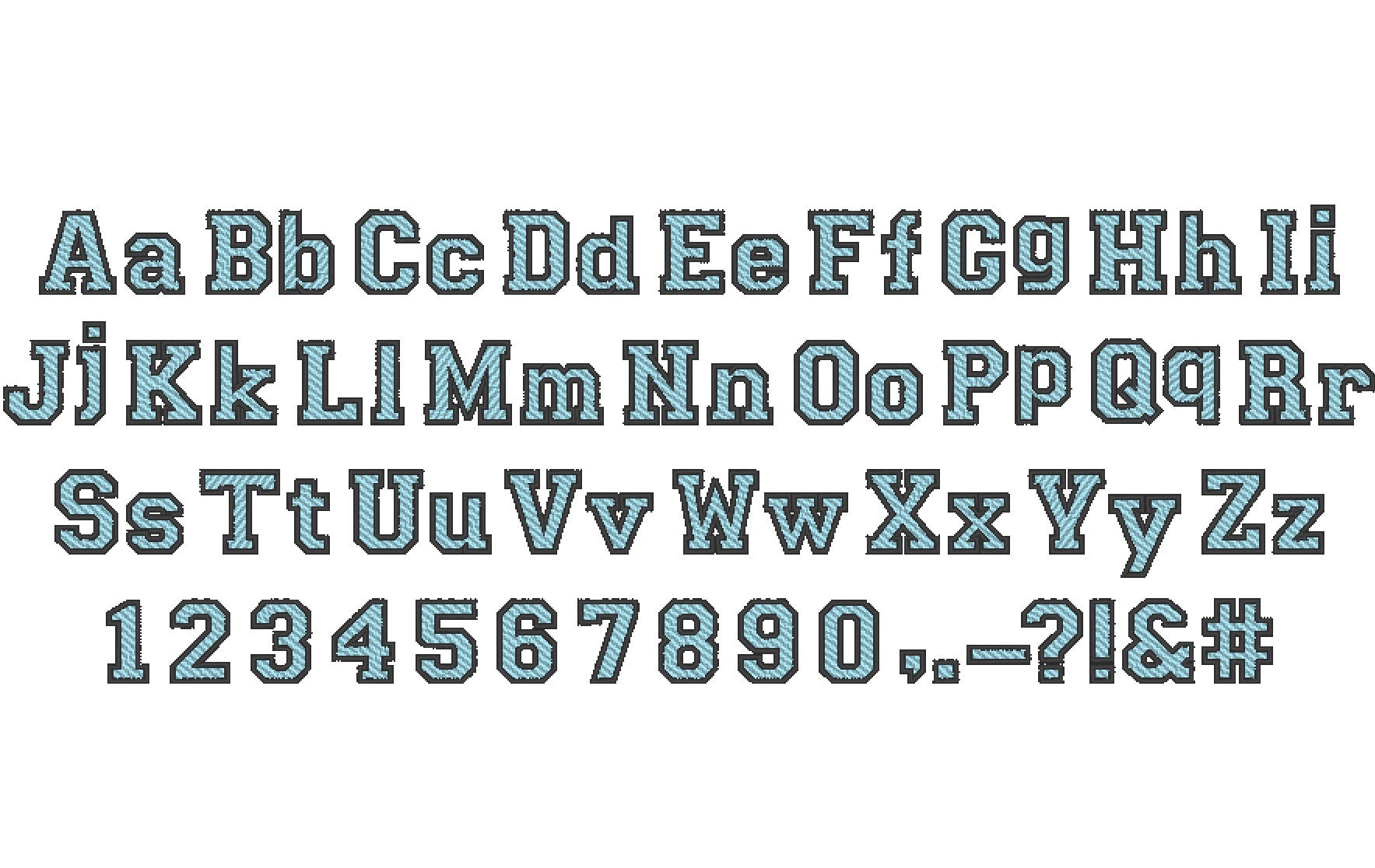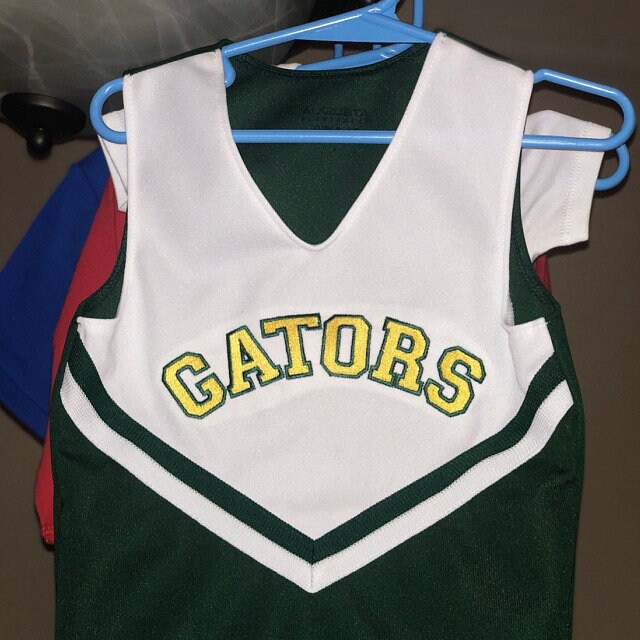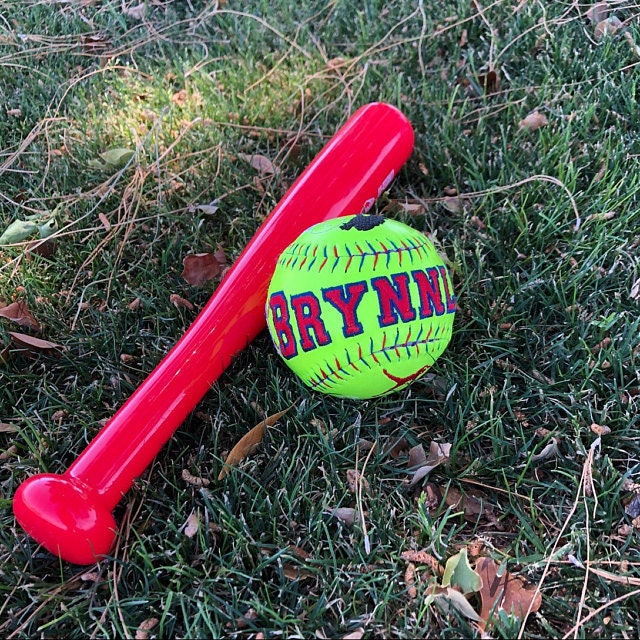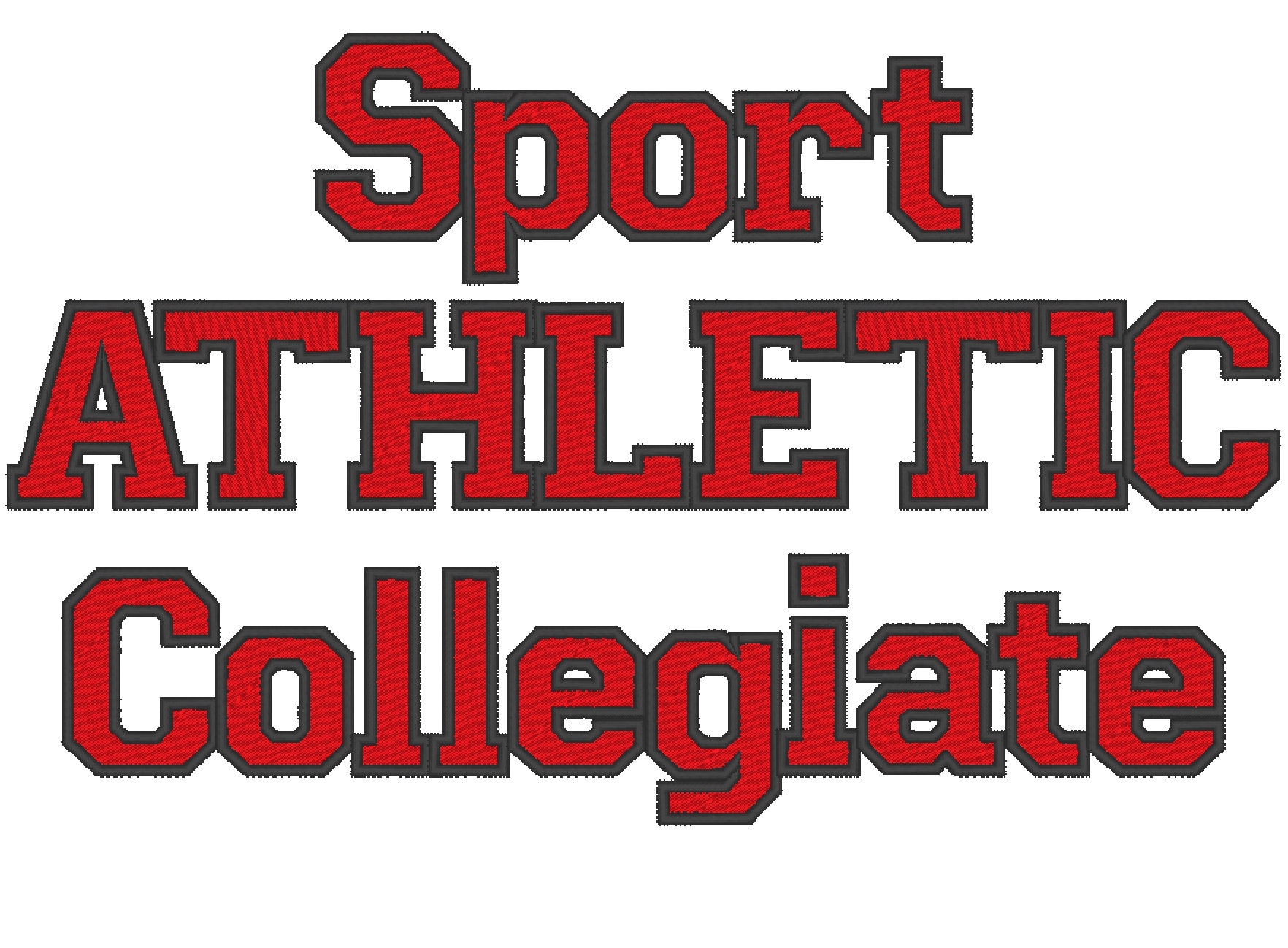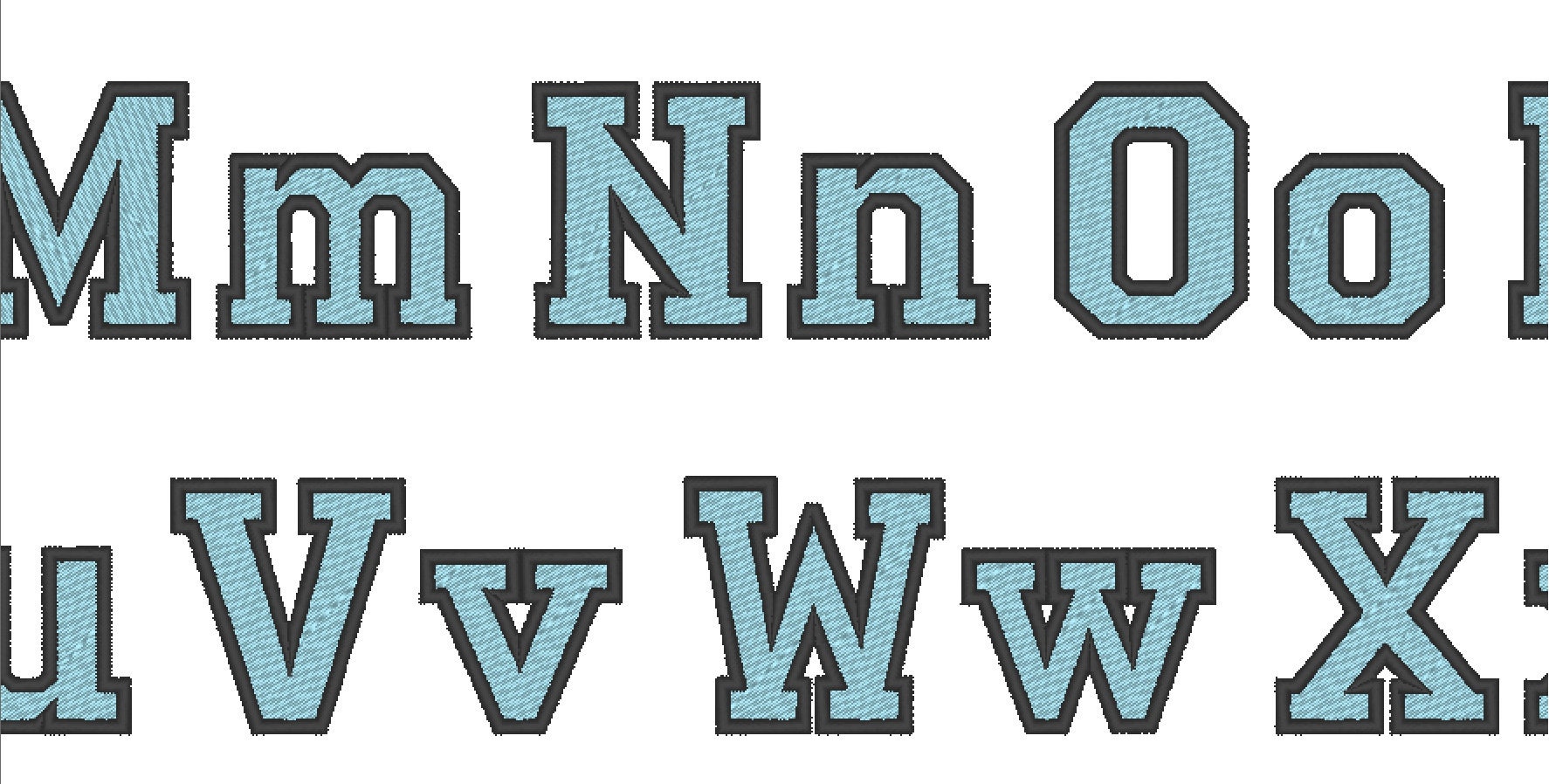
Athletic Collegiate Block mini FONT sport Alphabet Monogram fill stitch machine embroidery design many sizes and embroidery formats BX
Fill stitch font with outline.
Entire alphabet uppercase and lowercase letters, numbers, and punctuation.